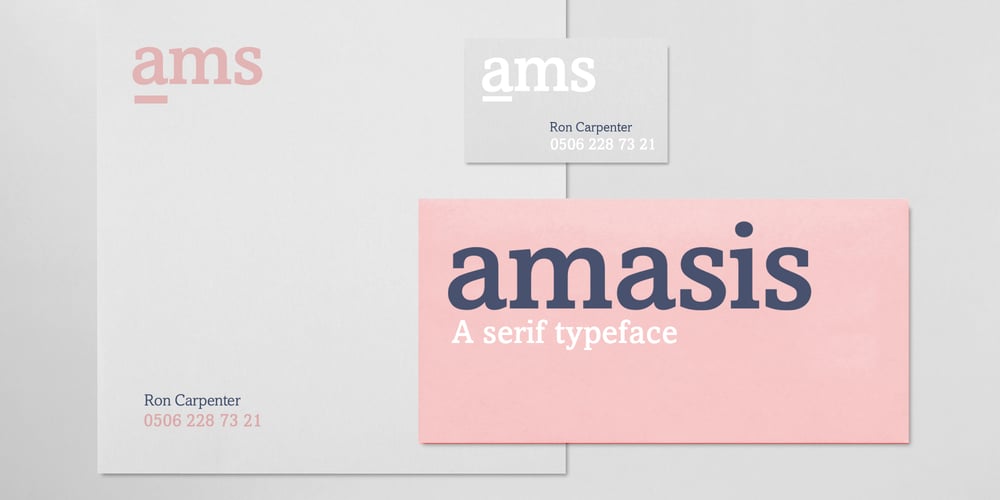
Amasis
Amasis font
Amasis Font Family was designed by Ron Carpenter and published by Monotype. Amasis contains 10 styles and family package options. Amasis is a slab serif design which has been drawn with a humanist approach, rather than the traditional geometric construction associated with this style of letter. The result is a typeface that has an affinity with the Ionics, although in character it belongs to the latter decades of the twentieth century. The Amasis italic fonts, rather than being sloped roman or cursive in nature, are related more to the Old Style italics. Amasis works particularly well in small sizes where readability is important. Amasis has proved excellent for use on low resolution printers and for facsimile transmissions.